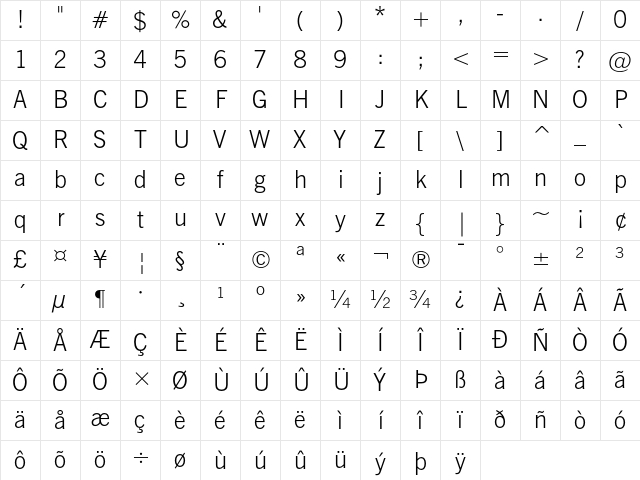
News Gothic Light
News Gothic Family
News Gothic Light
Complete News Gothic Light glyph index. Displaying only characters natively supported by News Gothic Light font.
Design Context for News Gothic
News Gothic takes a clean, functional approach - its unadorned letterforms prioritise legibility and work reliably across screen and print environments. Its slender proportions lend an understated elegance to any composition.
Font Pairing: Pair News Gothic with a medium or bold serif for headlines - the weight contrast creates an elegant, high-end feel.
Pro Tip: Use News Gothic with generous tracking and line-height for the most luxurious effect - light sans-serifs reward spacious, considered layouts.